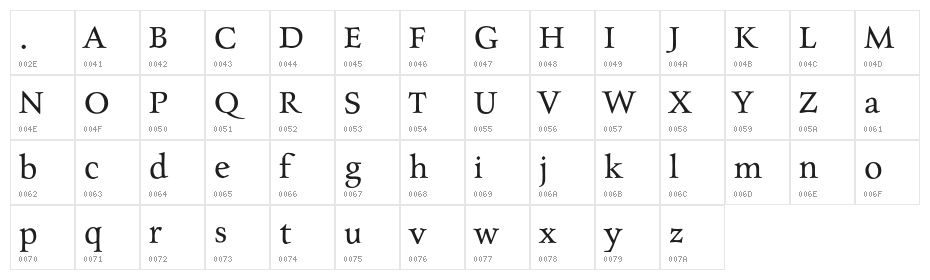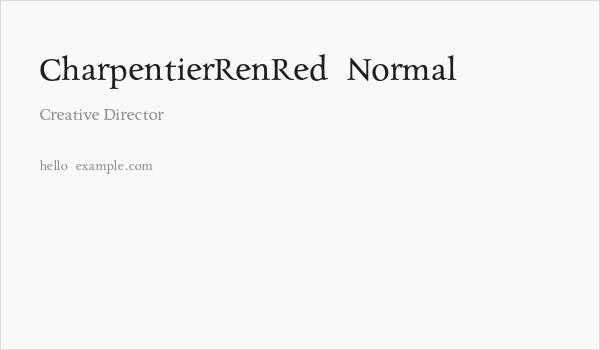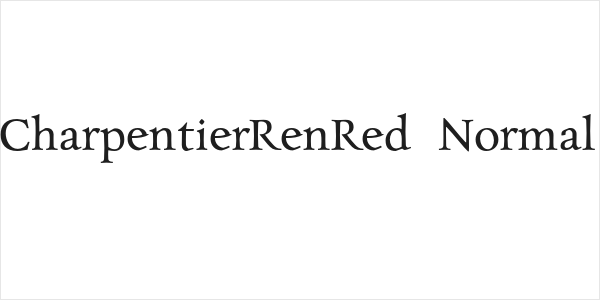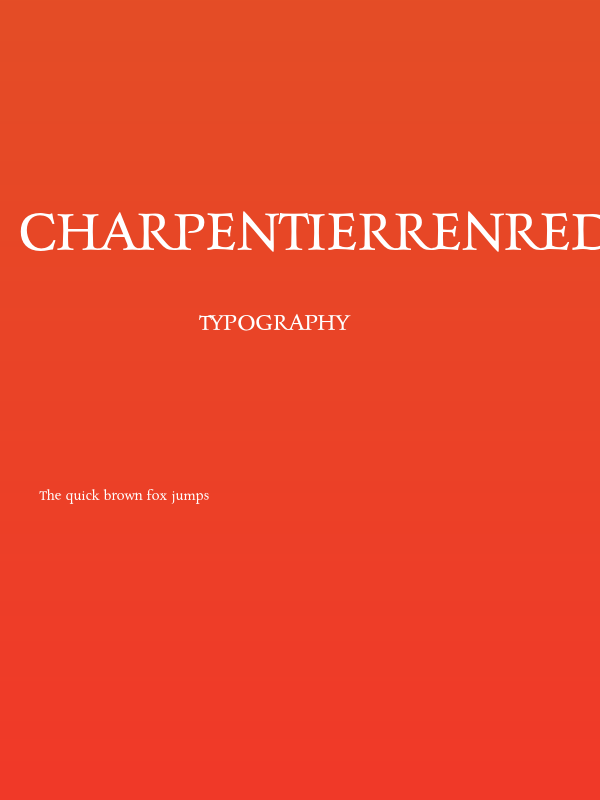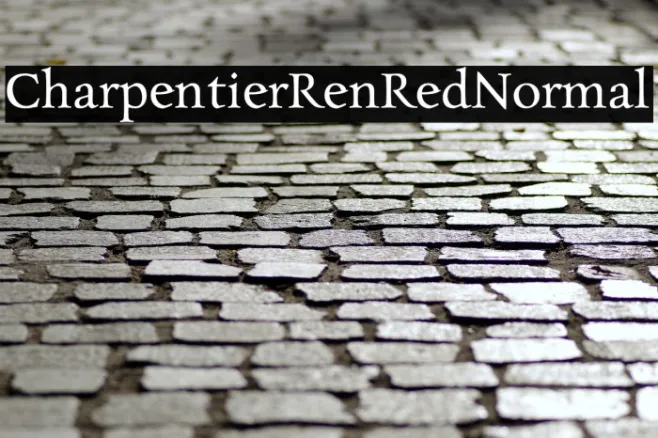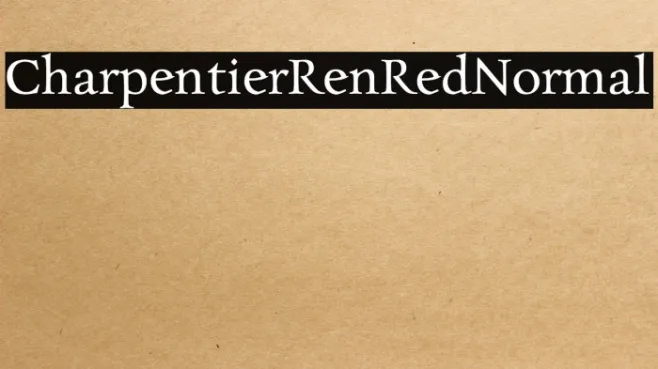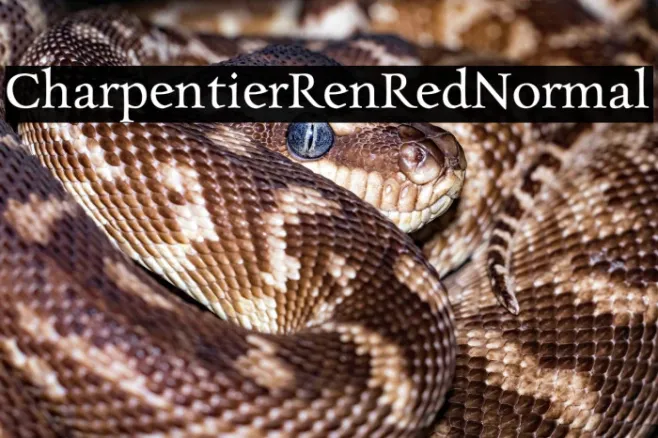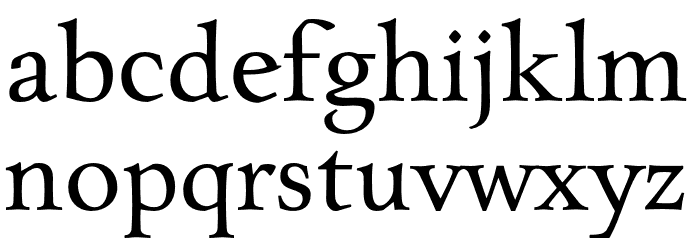
CharpentierRenRed-Normal Font
CharpentierRenRed-Normal Description
This font features a classic serif style with elegant, flowing lines and a slightly calligraphic influence. The characters exhibit a traditional form with moderate contrast between thick and thin strokes, giving it a refined and sophisticated appearance. The serifs are pronounced yet not overly ornate, adding to its readability and timeless charm. The uppercase letters are stately and well-proportioned, while the lowercase letters maintain a harmonious balance. This font is well-suited for projects that require a touch of elegance and historical flair.
| Font Family | Charpentier Renaissance Reduced |
| Proposed Projects | Ideal for book covers, formal invitations, historical documents, and branding that requires a classic touch. |